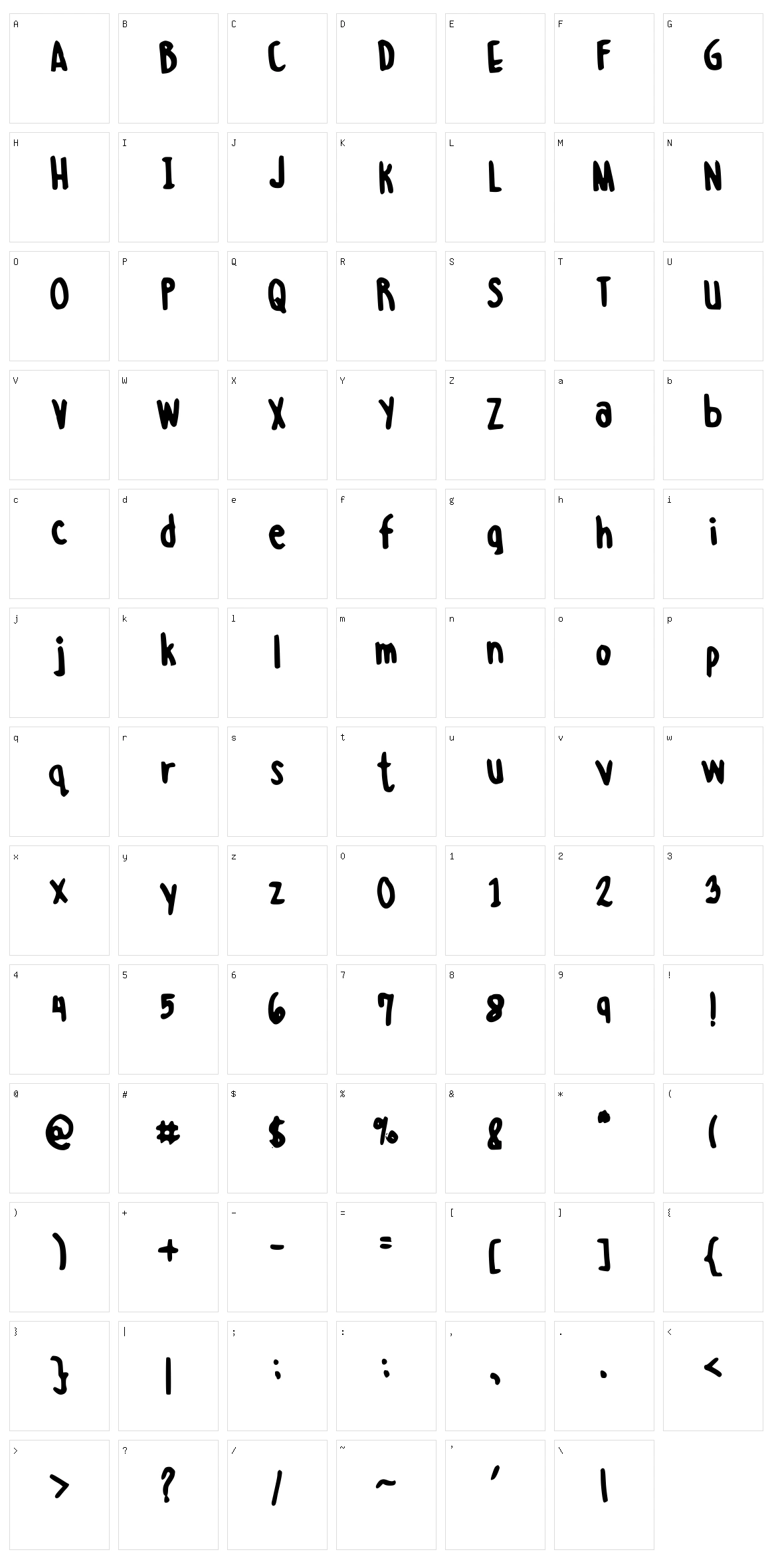
The free font Miss Kat Laurente is carefully designed by Julia Guinto, showcasing a thoughtful balance of creativity and usability and falls under the Script font style. When you download the ZIP file, it contains only 12.47 KB of font files, making it lightweight and quick to download. Please review the license details below to understand permitted usage and distribution rights. If license information is not available, we recommend using this font for personal projects only or contacting the author directly for commercial usage permissions.